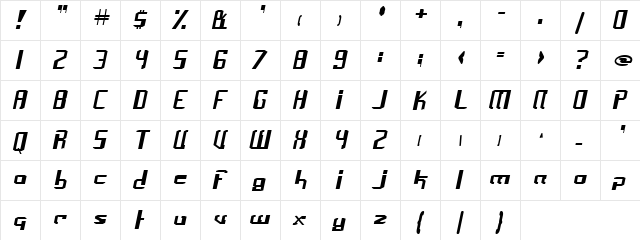
Frak Normal Font Preview
Frak Normal
Design Context for Frak Typeface
Frak is a composed and adaptable typeface that performs quietly and consistently across a wide range of design contexts.